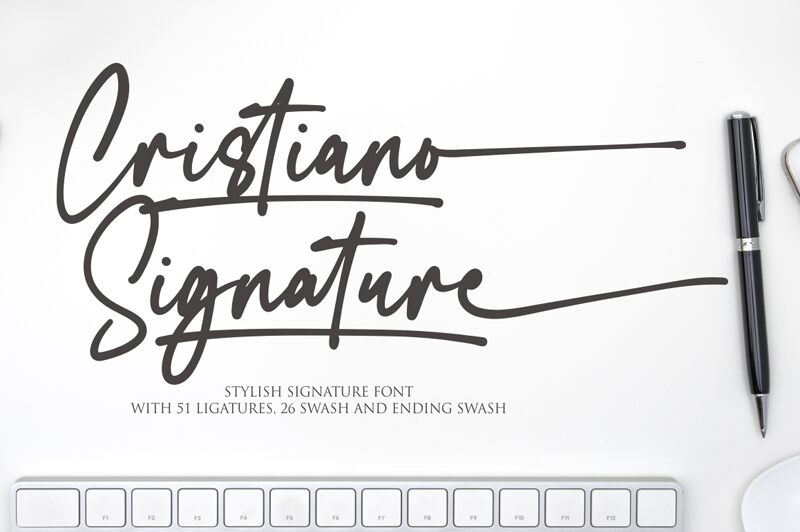
With its unique handwritten style, Cristiano Signature font by NJ Studio stands out as a versatile and elegant choice for creative projects. The semi-light weight and semi-condensed width give this font a modern and sophisticated feel, making it suitable for a wide range of design applications.
What sets Cristiano Signature apart are its 51 ligatures, 26 swash, and ending swash characters, offering endless possibilities for customization and personalization.
Whether you're working on digital wedding blogs, online shops, social media graphics, or printed materials like clothing labels and business cards, this font has the flexibility to elevate your designs.
Embrace the creativity that Cristiano Signature brings to the table and let it inspire your next project.